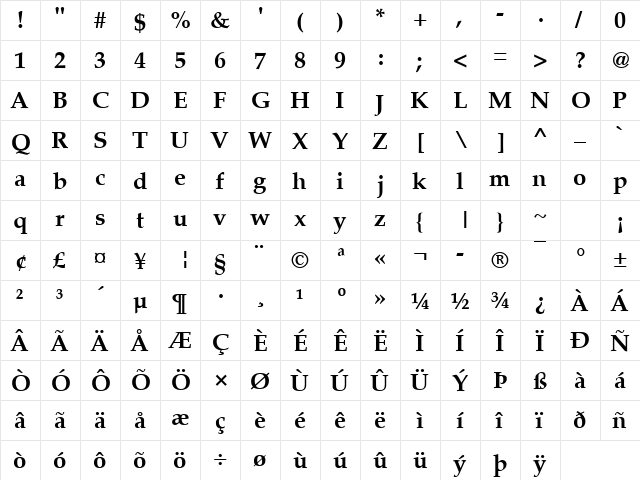
Palladio Becker Bold
Design Context for Palladio Becker Typeface
Palladio Becker takes a measured approach to typography — its balanced proportions and neutral character make it a reliable workhorse for both digital and print work. The heavy weight commands attention and anchors typographic hierarchies.